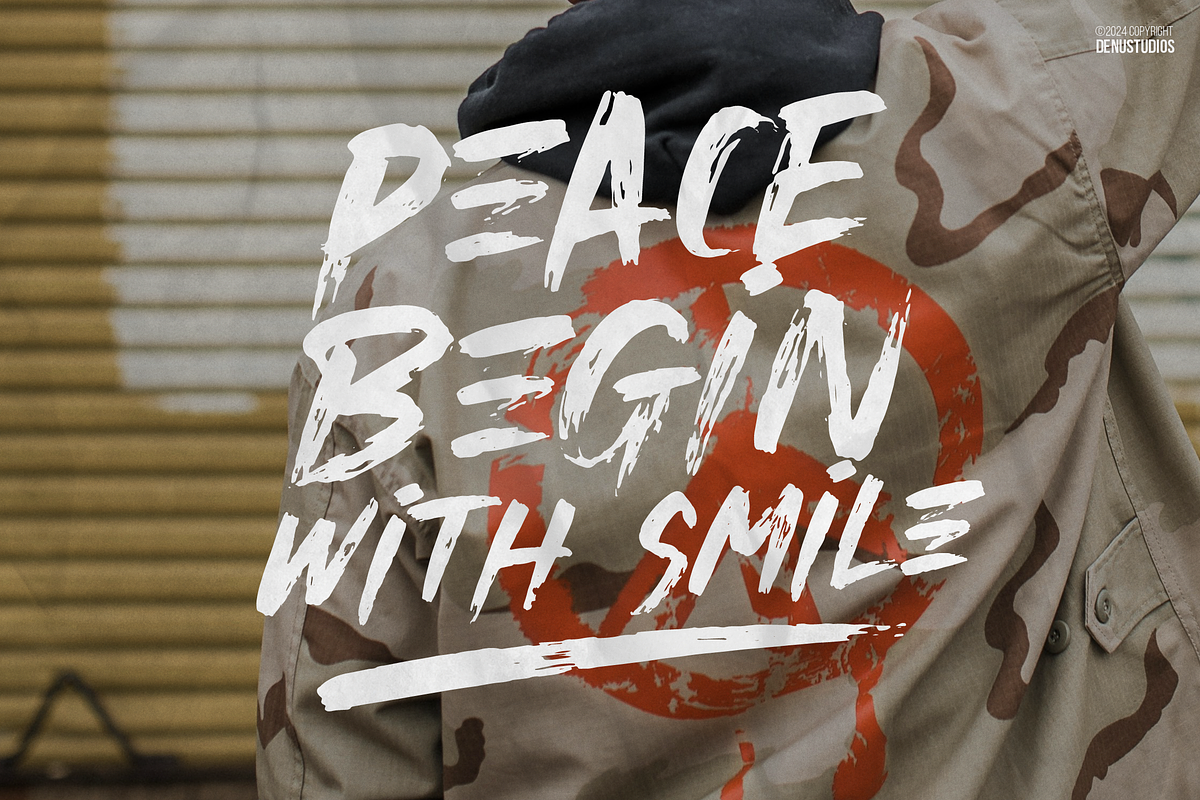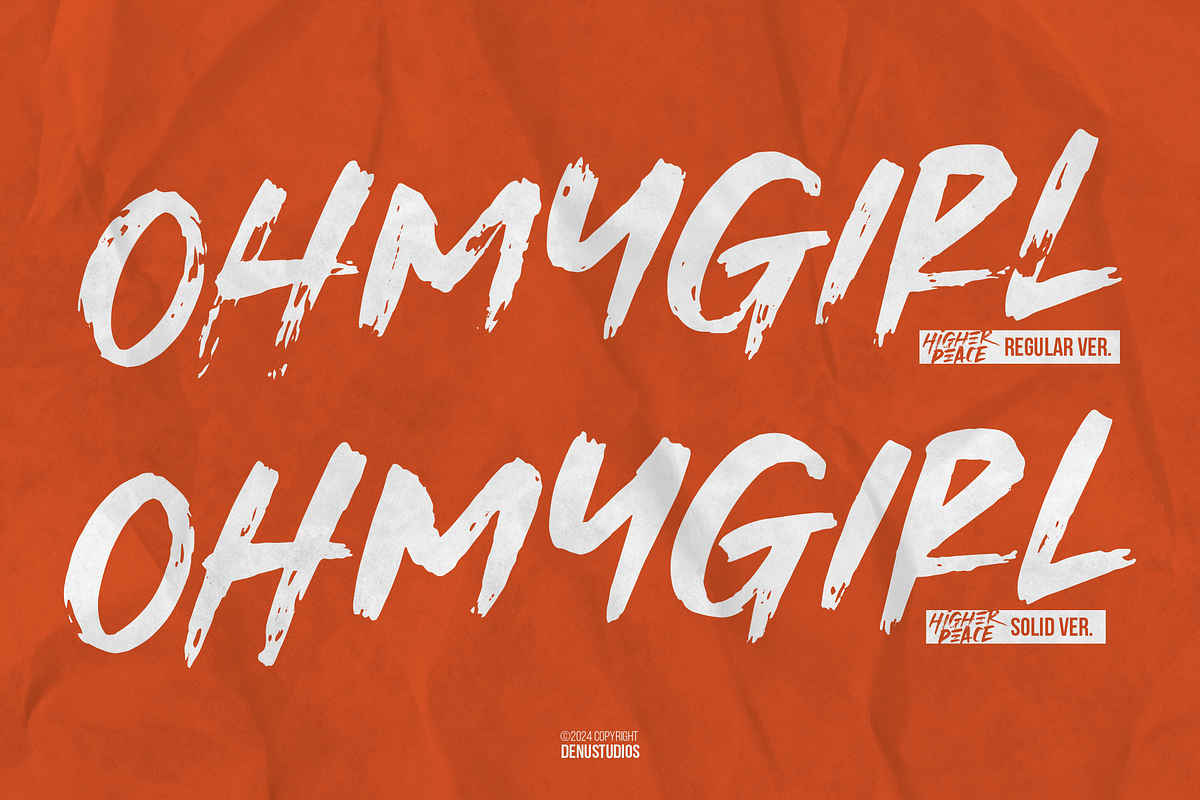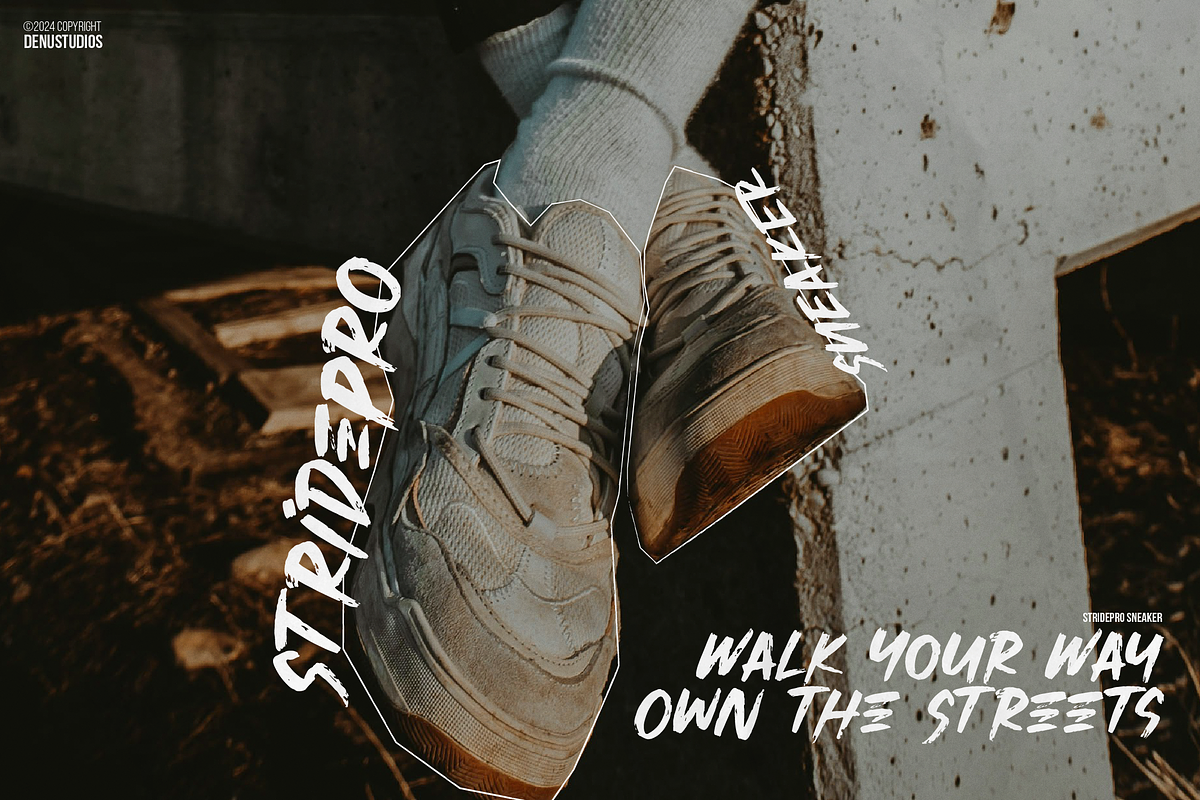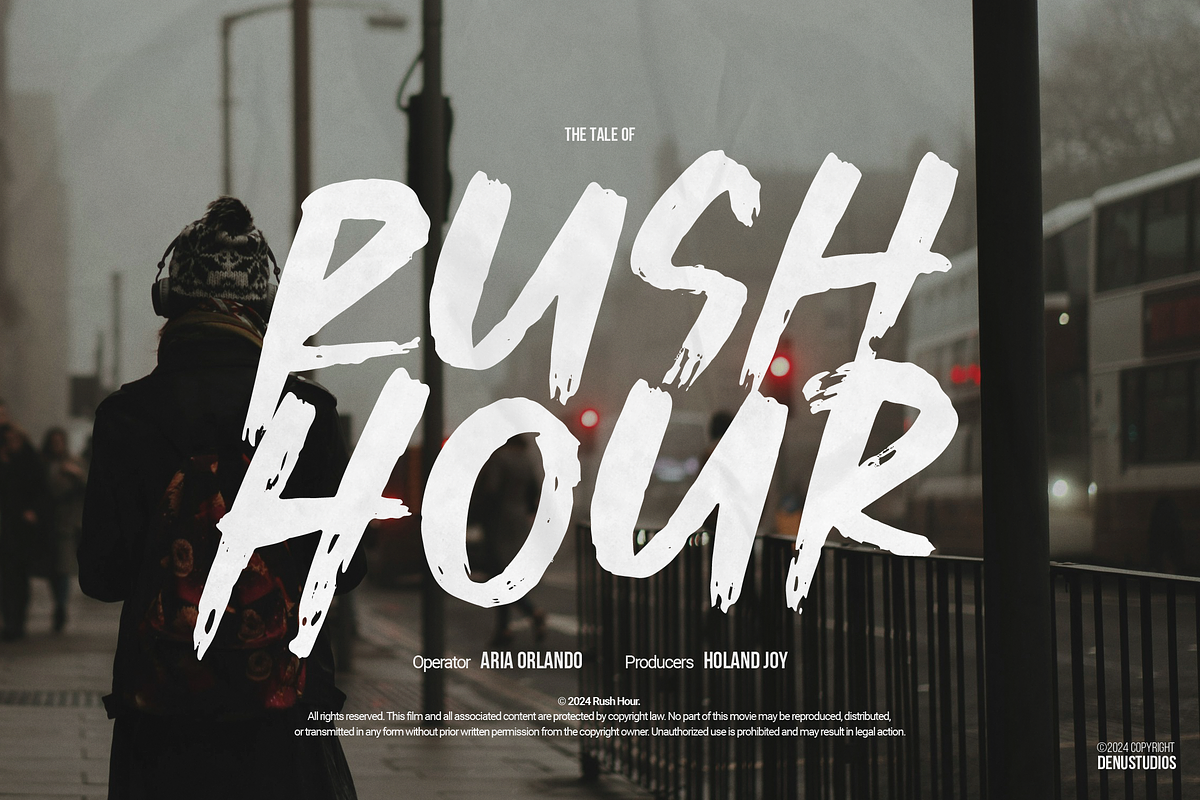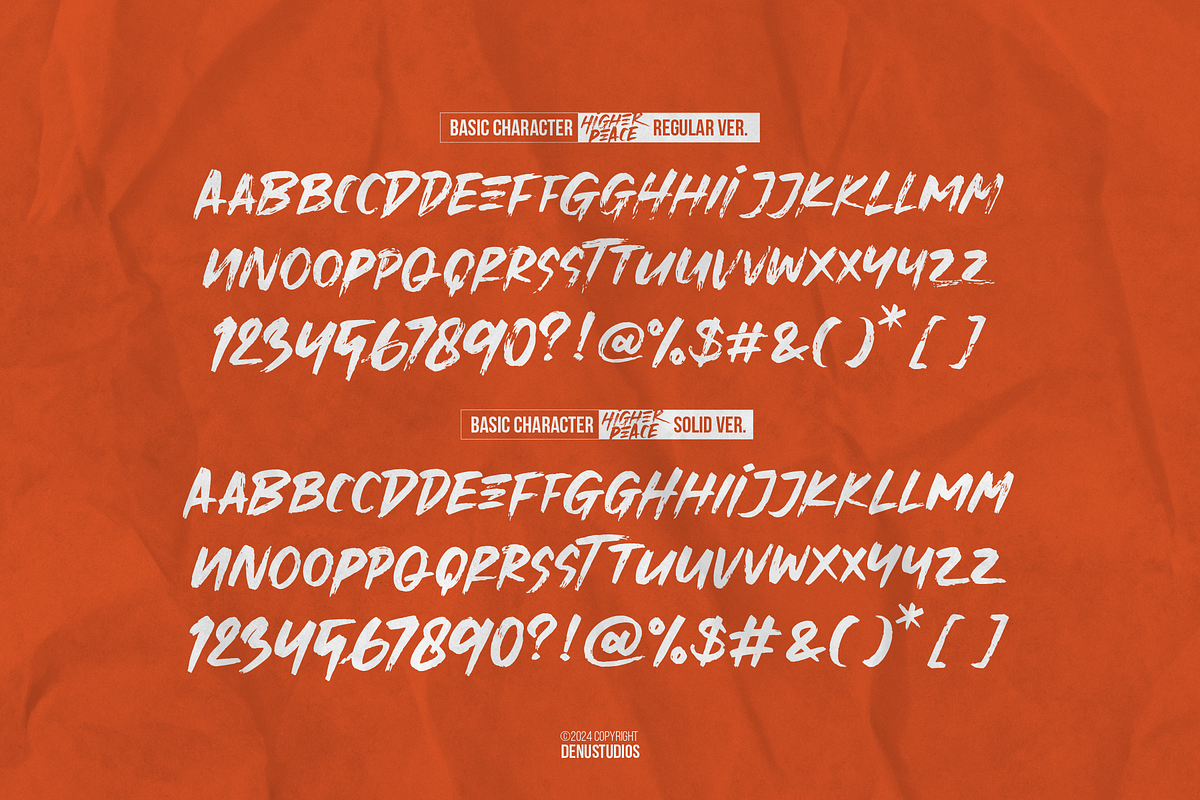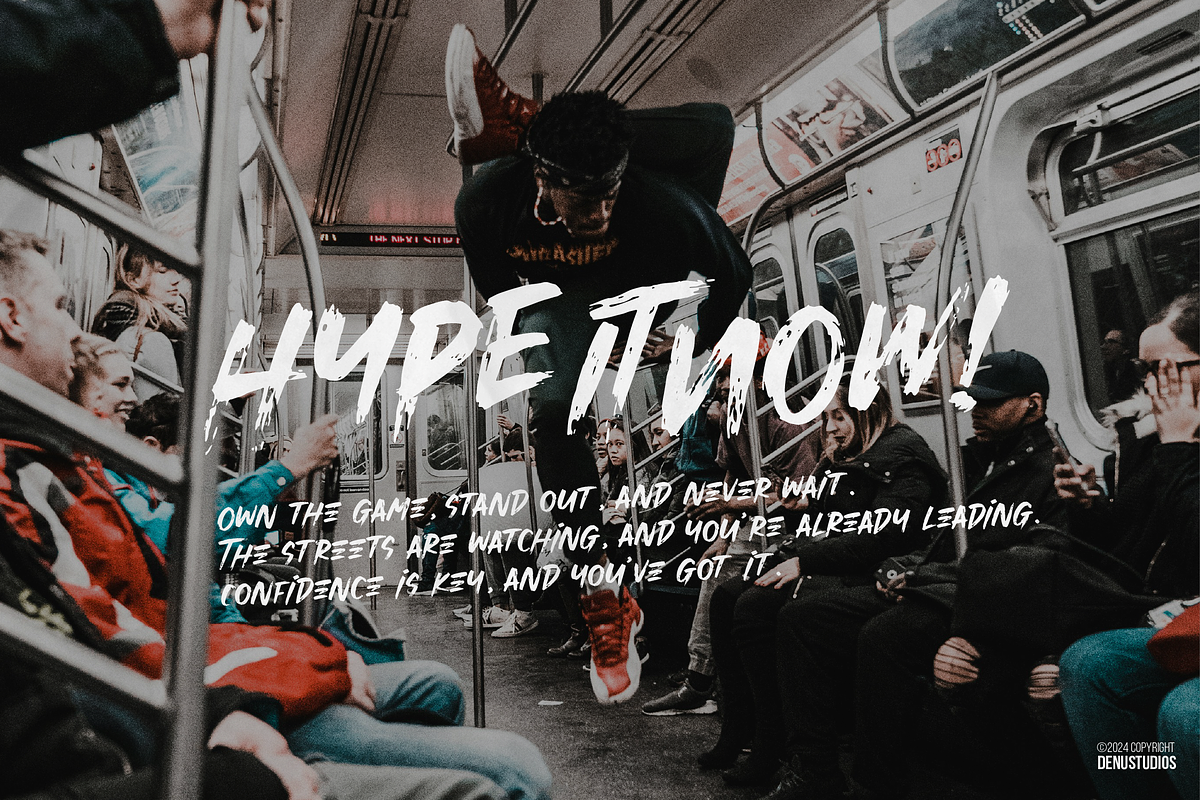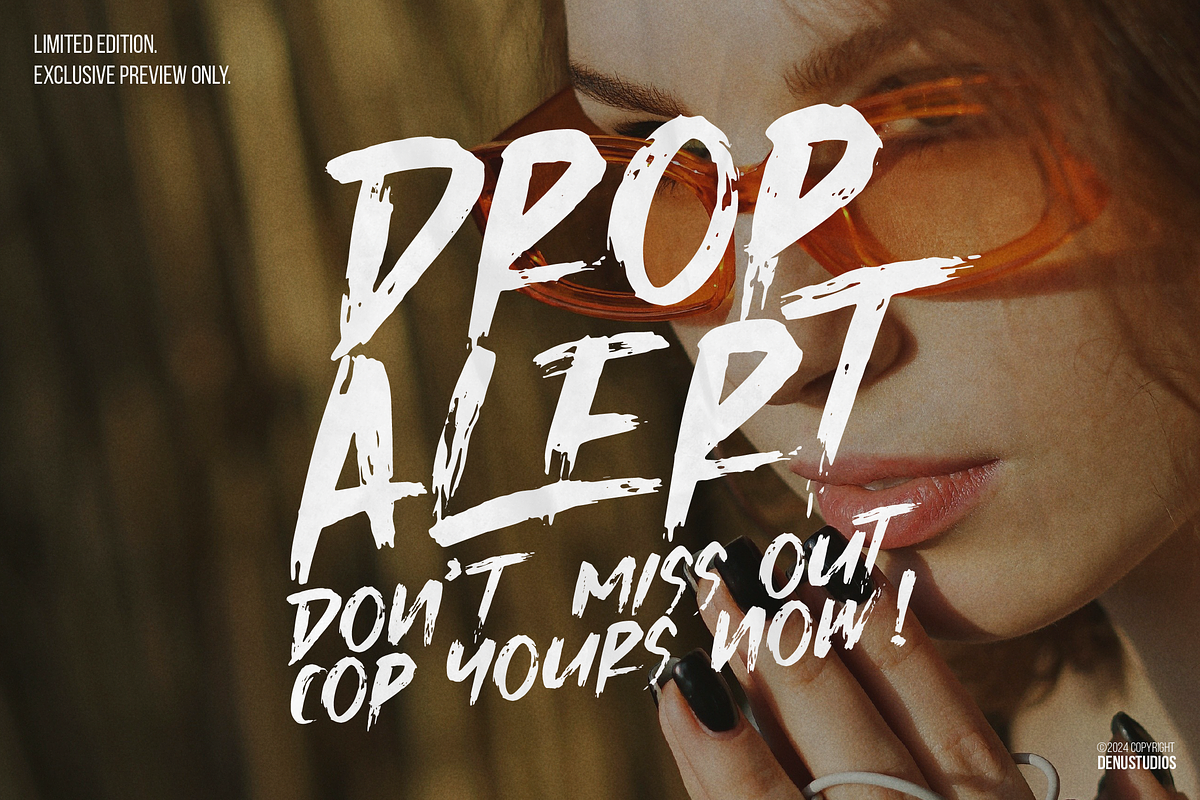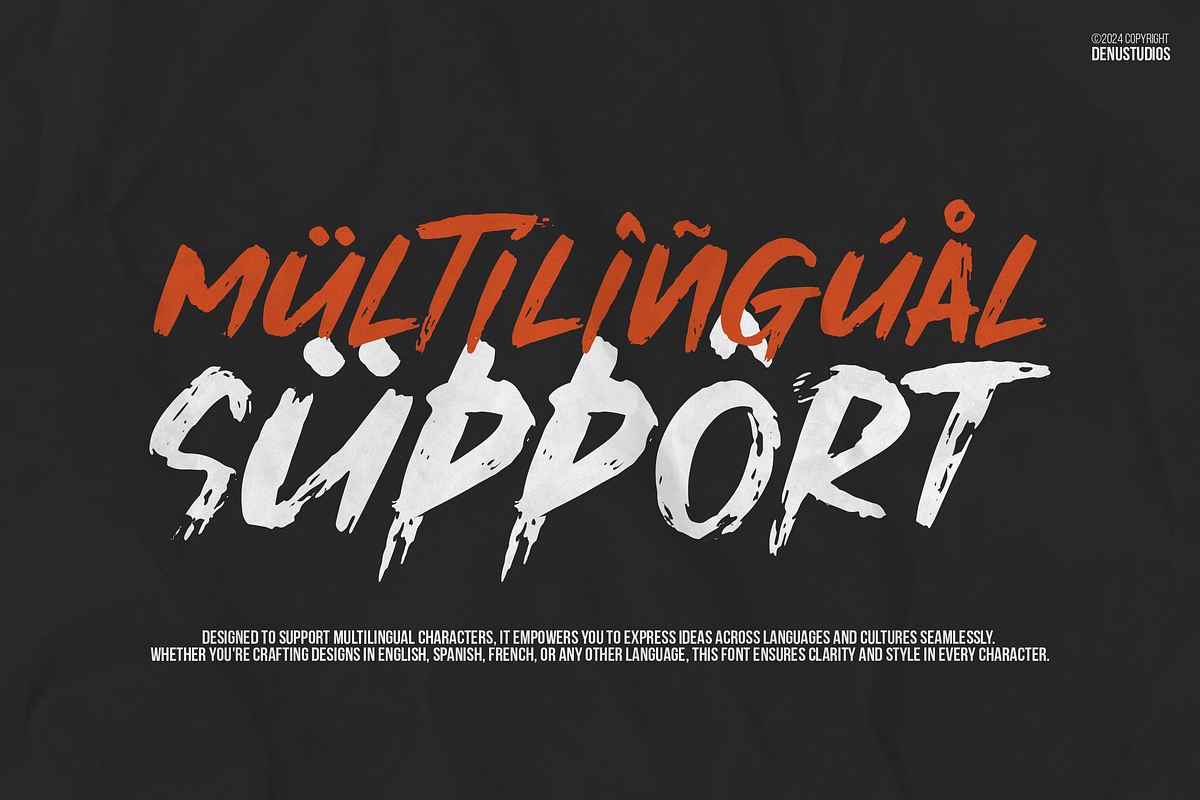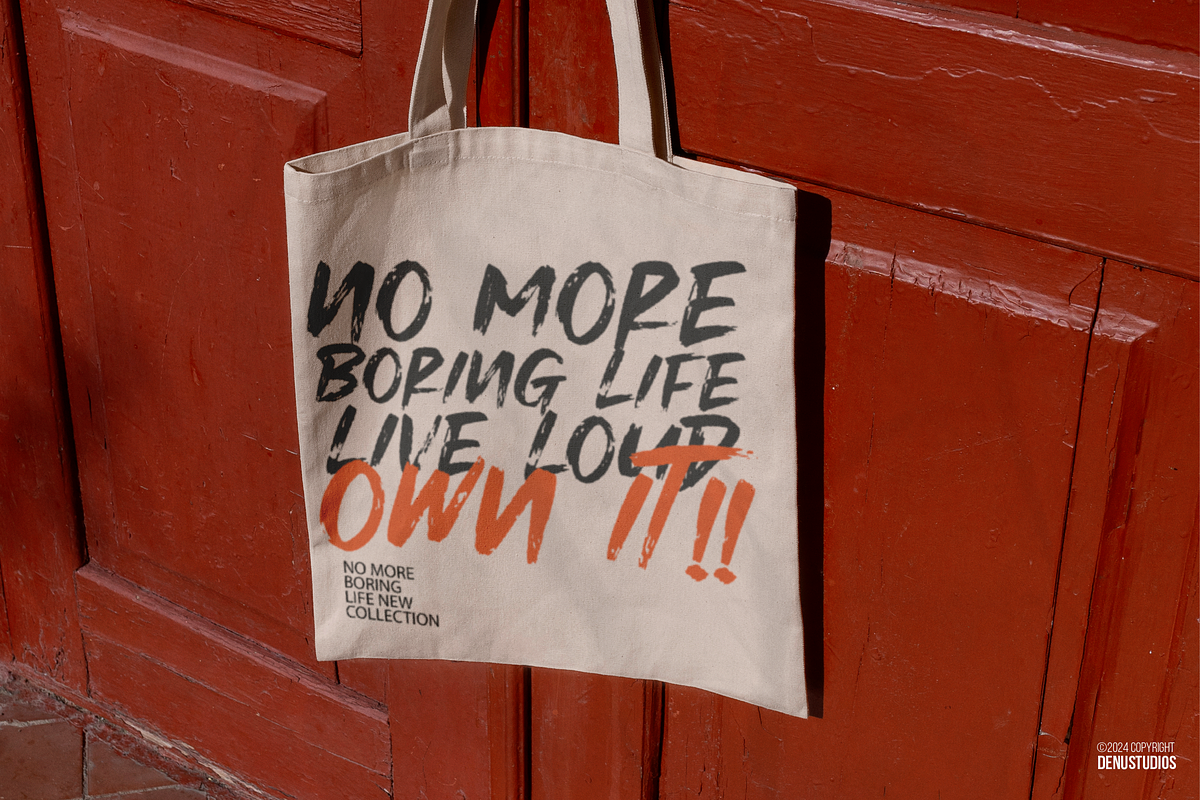
Higher Peace | Rough Brush Duo Font
Higher Peace | Rough Brush Duo Font, from Denustudios, suitable for any projects such as: logos, branding projects, homeware designs, product packaging, mugs, quotes, posters, shopping bags, t-shirts, book covers, name card, invitation cards, greeting cards, label, photography, watermark, special events, and all your other lovely projects that need a Rough Brush Duo Font taste.